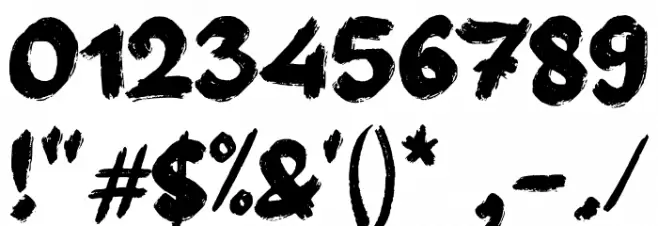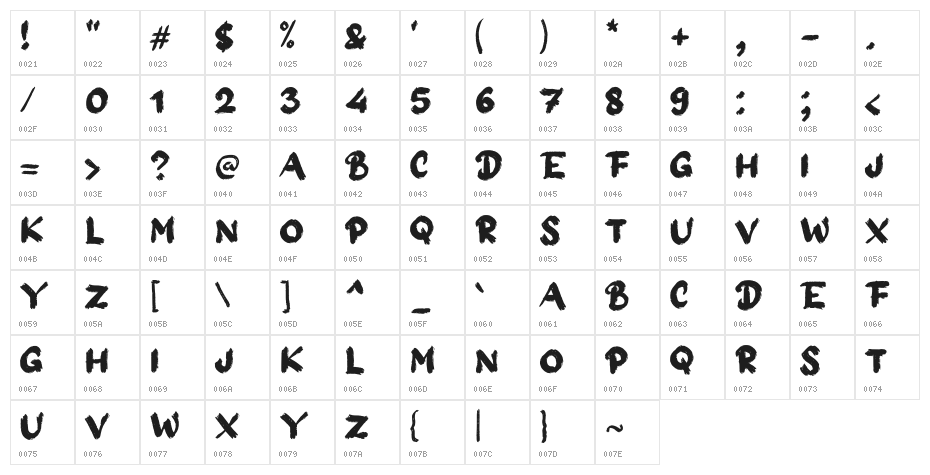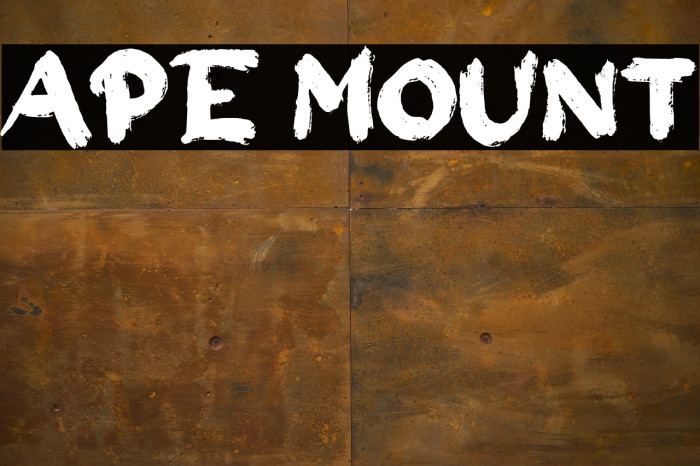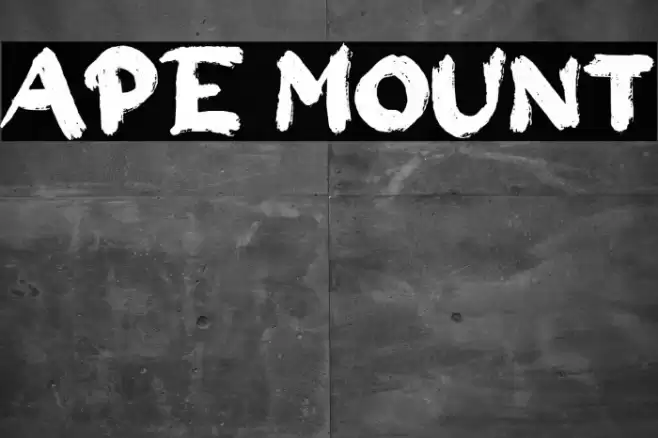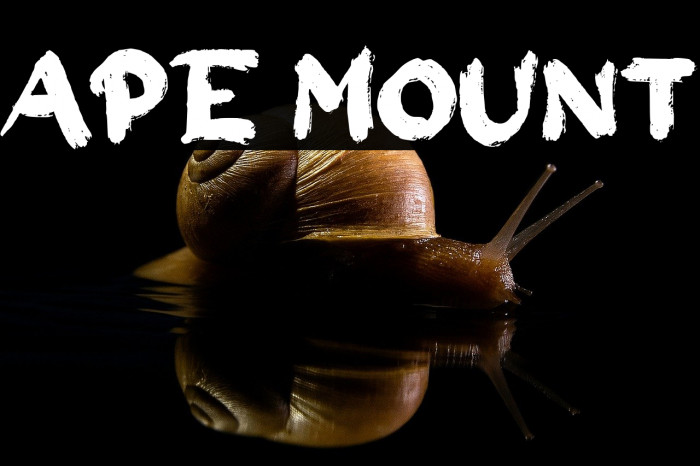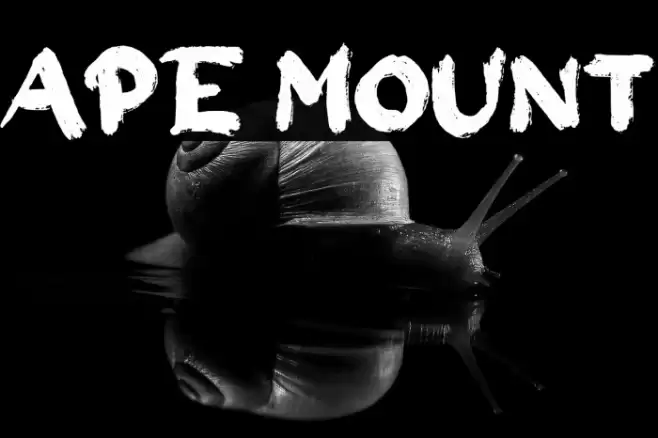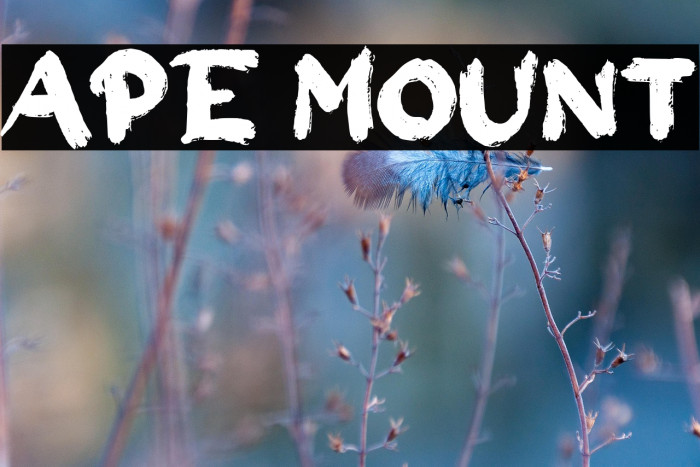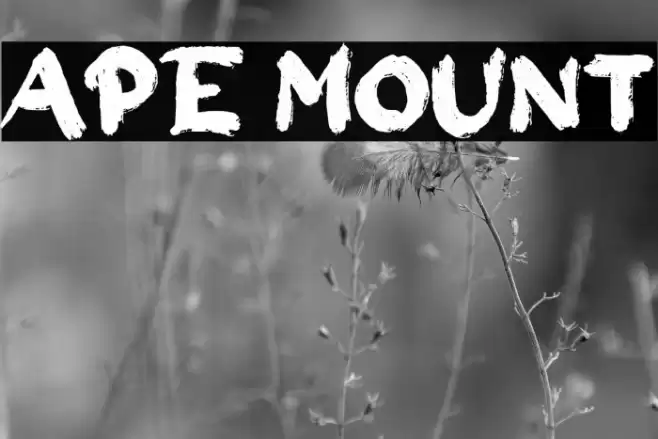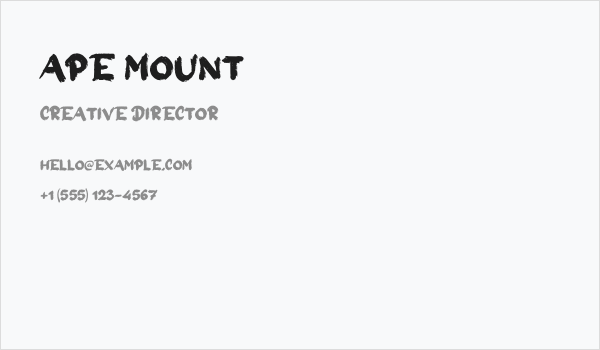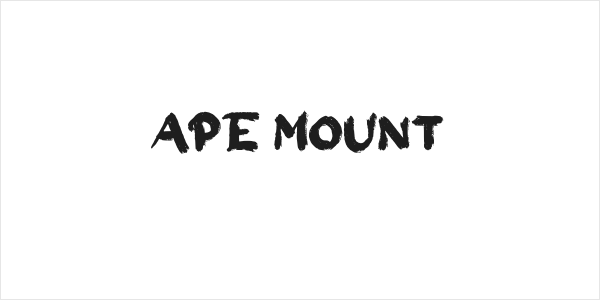
Ape Mount Font
Ape Mount Description
This font features a bold, expressive brush style that exudes energy and dynamism. The strokes are thick and textured, giving it a hand-painted appearance. Each character is unique, with varying stroke widths that add to its artistic flair. The uppercase and lowercase letters maintain a consistent style, while the numbers and special characters are equally bold and impactful. This font is perfect for projects that require a strong visual presence and a touch of creativity.
Overall StyleModern, Artistic
Proposed ProjectsIdeal for posters, branding, packaging, and any creative projects needing a bold statement.